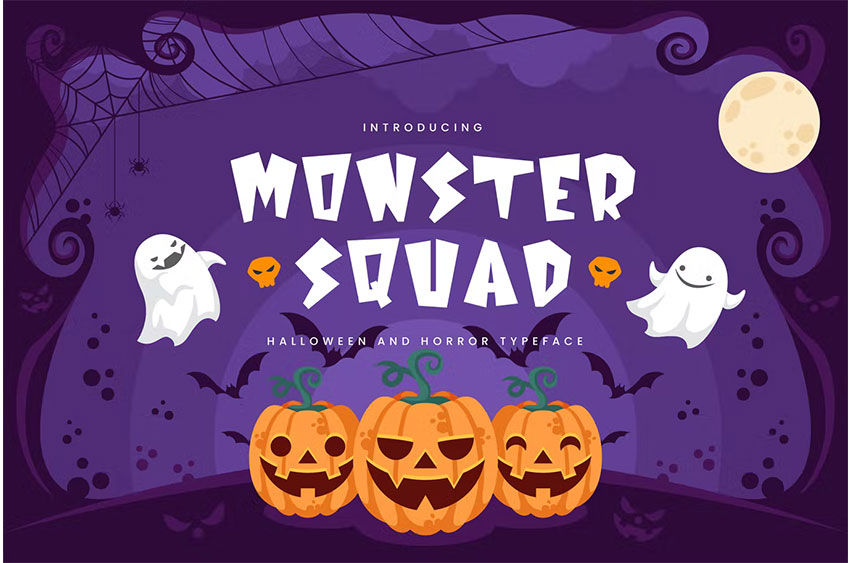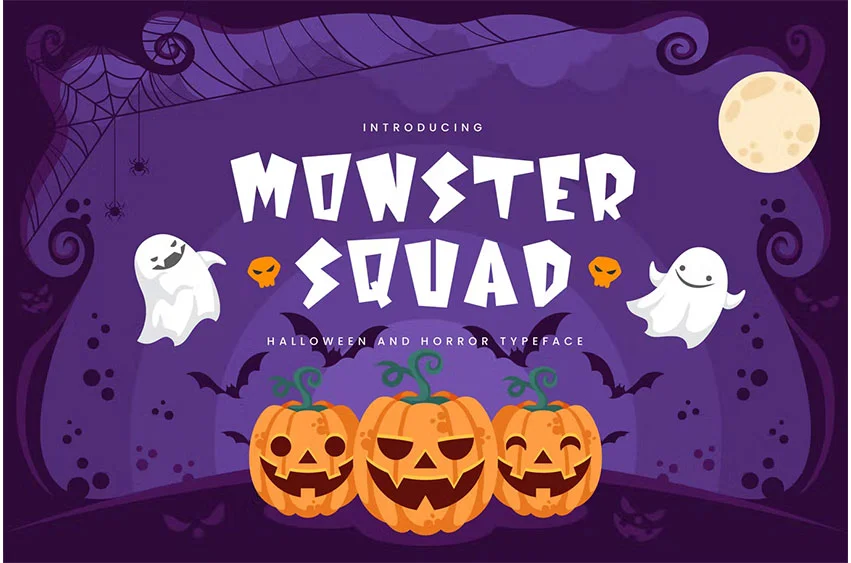
Monster Squad Font
Monster Squad Font for children and Halloween events? We can help! Try to download our Monster Squad font. The font is suitable to use for casual purposes especially children related occasions and Halloween 🙂 Oh yeah, we forgot to mention that we give you 5 cute Halloween monster vector objects for free too in Adobe Illustrator format!